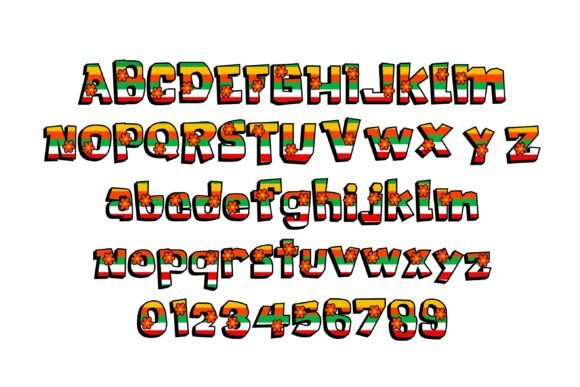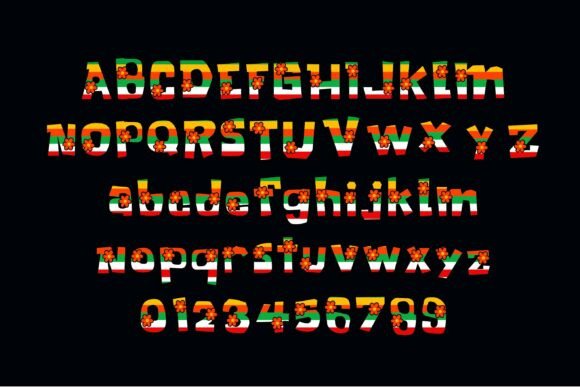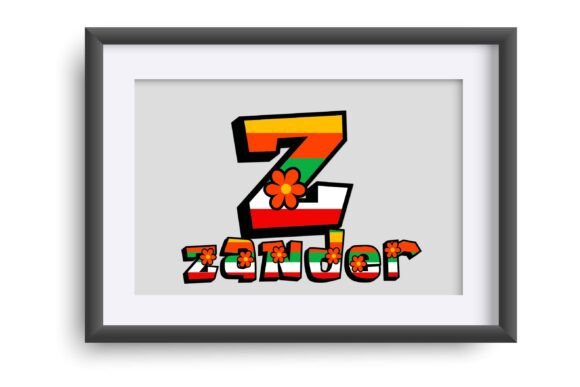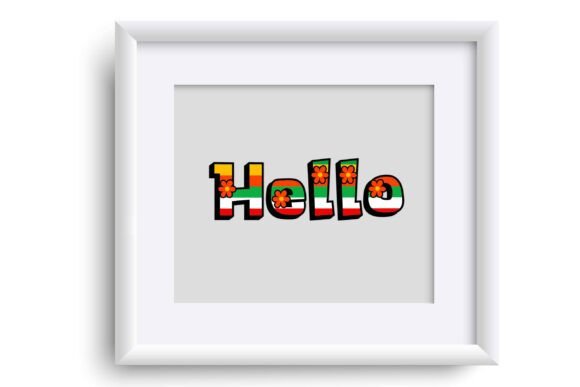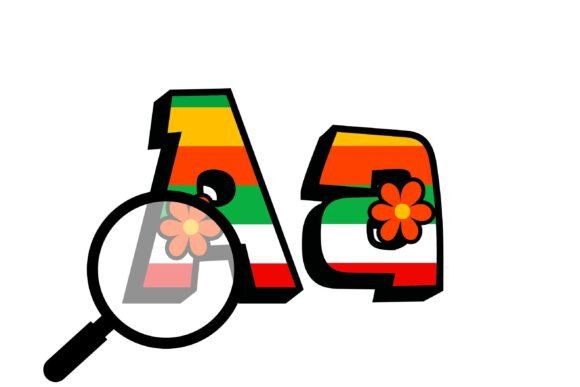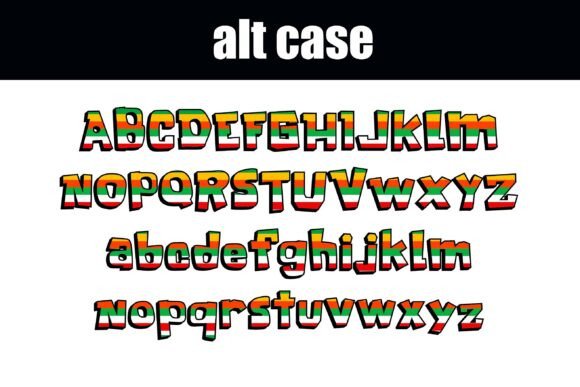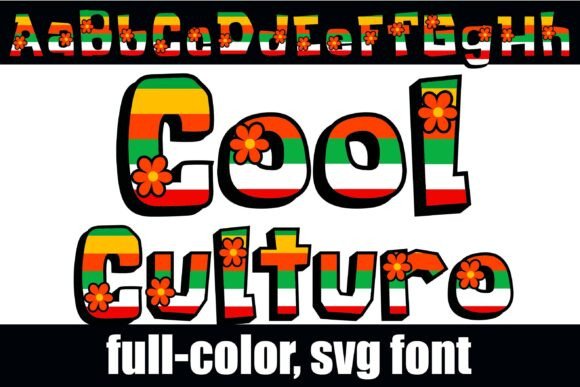
Unleash the Groovy Vibes with Cool Culturo Font: The Ultimate Display Typeface for Retro-Inspired Branding
Are you a designer or crafter looking for a font that embodies the spirit of retro culture while still feeling modern and fresh? Look no further than Cool Culturo Font, a groovy display typeface that’s sure to make your brand stand out. With its bold, blocky letterforms and rhythmic ātricolor-stripeā patterns, this full-color SVG font is the perfect choice for independent streetwear identities, boutique global market logos, music festival branding, and high-impact social media headers.
A Retro-and-Rooted Soul with a Modern Twist
Cool Culturo Font is all about capturing the essence of 70s heritage aesthetics while infusing it with a modern, cool personality. The font’s unique design combines heavy structural weight with a playful, rhythmic pattern that’s sure to grab attention. The bold, blocky letterforms are reminiscent of classic retro fonts, while the integrated floral accents add a touch of elegance and sophistication.
Key Features of Cool Culturo Font
- Full-color SVG font: Cool Culturo Font is a full-color SVG font that allows for versatile use across various platforms and applications.
- Rhythmic ātricolor-stripeā patterns: The font’s unique tricolor-stripe patterns add a dynamic, playful touch to any design.
- Integrated floral accents: The subtle floral accents add a touch of elegance and sophistication to the font.
- Bold, blocky letterforms: The font’s bold, blocky letterforms are perfect for making a statement.
- Heavy structural weight: The font’s heavy structural weight gives it a strong, confident presence.
Perfect for Retro-Inspired Branding
Cool Culturo Font is the perfect choice for designers and crafters looking to create retro-inspired branding that’s both nostalgic and modern. The font’s unique design makes it ideal for:
- Independent streetwear identities: Cool Culturo Font is perfect for creating bold, eye-catching logos for streetwear brands.
- Boutique global market logos: The font’s unique design makes it a great choice for boutique global market logos that need to stand out.
- Music festival branding: Cool Culturo Font is a great choice for music festival branding, adding a fun, playful touch to any design.
- High-impact social media headers: The font’s bold, blocky letterforms and rhythmic patterns make it perfect for creating high-impact social media headers.
Tips for Using Cool Culturo Font
Here are some tips for getting the most out of Cool Culturo Font:
- Experiment with colors: Cool Culturo Font is a full-color SVG font, so don’t be afraid to experiment with different colors and combinations.
- Play with patterns: The font’s rhythmic ātricolor-stripeā patterns are a key part of its design, so try playing with different patterns and arrangements.
- Mix and match: Cool Culturo Font is a versatile font that can be paired with a range of other fonts and design elements, so don’t be afraid to mix and match.
Cool Culturo Font is a unique and versatile display typeface that’s perfect for designers and crafters looking to create retro-inspired branding that’s both nostalgic and modern. With its bold, blocky letterforms, rhythmic ātricolor-stripeā patterns, and integrated floral accents, this font is sure to make your brand stand out. Whether you’re creating independent streetwear identities, boutique global market logos, music festival branding, or high-impact social media headers, Cool Culturo Font is the premier choice.